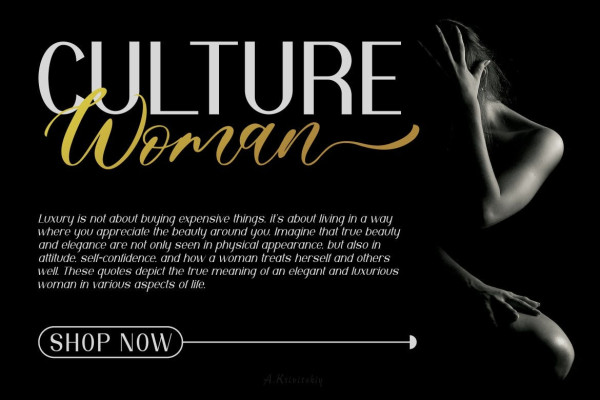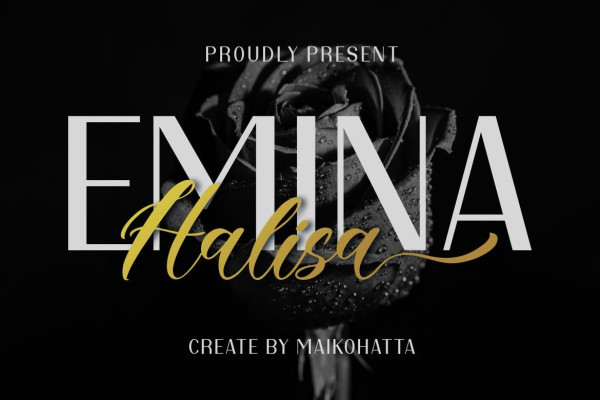
Emina Halisa Font
Emina Halisa Font, this collaboration creates an intriguing and versatile combination in text design. The use of regular sans serif font as the main text provides clarity and ease of reading, making it well-suited for titles, subheadings, or paragraphs. Meanwhile, the script font is employed as an accent or decorative element to add a special touch and emphasize important parts of the text, such as names, keywords, or short phrases.
The amalgamation of these two styles allows designers to achieve a balanced composition between elegance and assertiveness. This collaboration is frequently used in various design projects, such as logos, posters, invitations, greeting cards, websites, or marketing materials. When applied thoughtfully, the collaboration of regular sans serif and script font styles can yield captivating, elegant designs that convey messages more effectively to the audience.